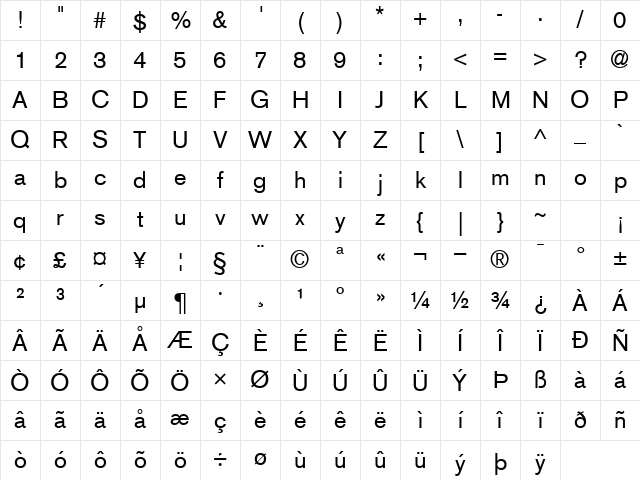
AkzidenzGroteskCE takes a clean, functional approach - its unadorned letterforms prioritise legibility and work reliably across screen and print environments.
Font Pairing: Works well alongside a characterful serif or display font that can carry the expressive load while AkzidenzGroteskCE handles the functional copy.
Pro Tip: Use AkzidenzGroteskCE for UI labels, navigation, and short-form body copy where clean legibility is the priority.